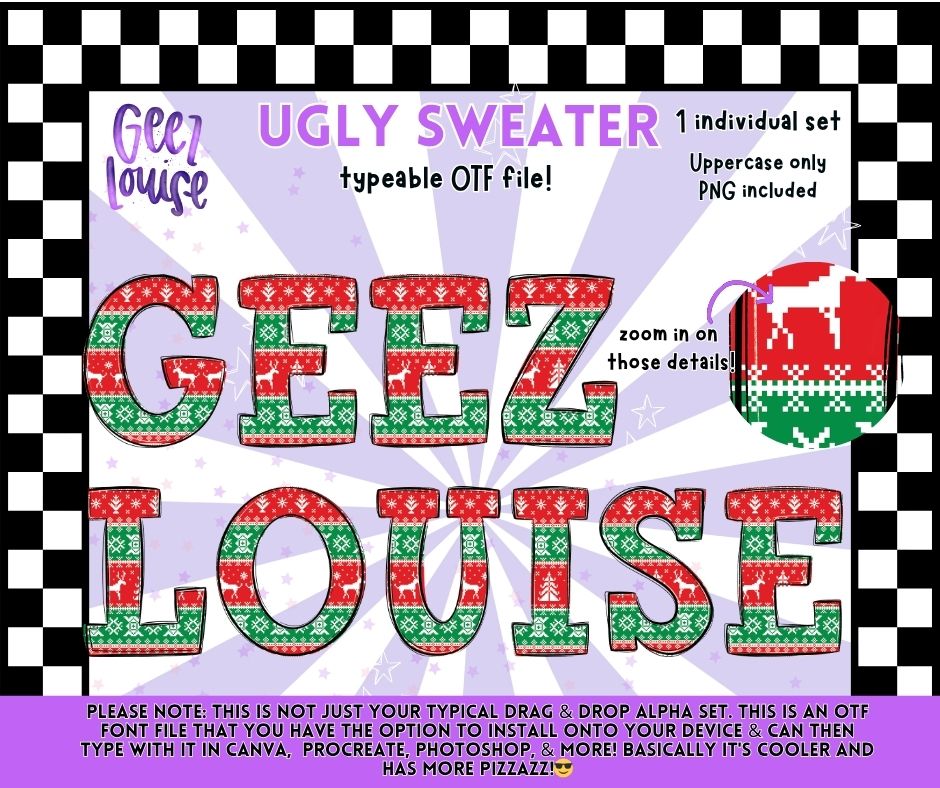
Ugly Sweater Alpha – Christmas Pattern OTF Font with PNG Letters (Uppercase)
It’s giving tacky in the best way possible 🎄🎅😂
The Ugly Sweater Alpha OTF Font brings all the nostalgic knit-pattern fun of your favorite holiday sweater — but way cuter! Featuring classic red, green, and white Christmas sweater textures, this font is perfect for festive apparel and merry market season.
Deck your designs out in the ultimate holiday fashion — the uglier the better! 🎄🤶✨